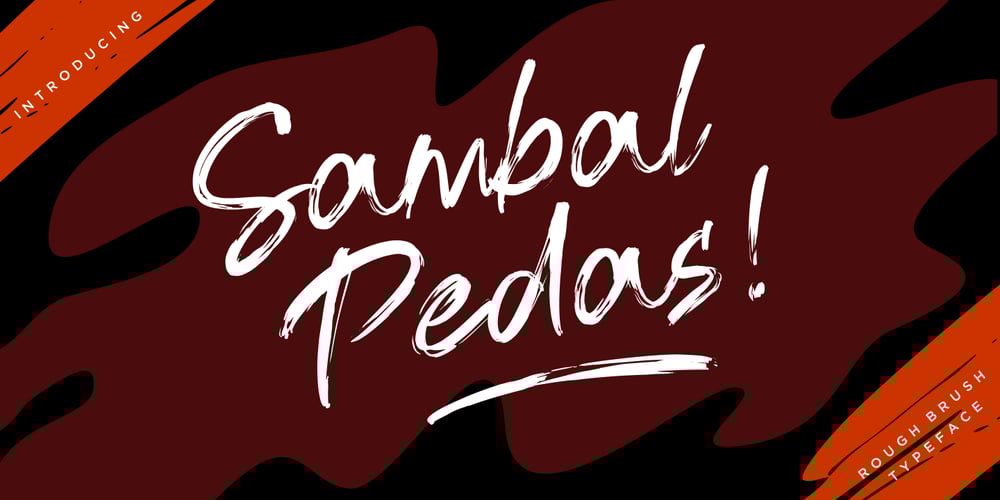
Sambal Pedas Font Family was designed by Burhan Afif and published by HansCo. Sambal Pedas contains 1 styles and family package options. Sambal Pedas is a handwritten font with a dry brush texture. This texture is very detailed. This font looks rough and will be great in any design. It is very recommended to use in crafts, posters, books, branding, quotes, print templates, packaging, invitations, music labels, product label, logo, shirt, magazine or anything else. This typeface comes in uppercase and lowercase, with punctuation, symbols, numerals, swashes and also has multilingual support. Swashes is alternate from numeral 0 – 9, You can access swashes from your OpenType panel in your design software. Enjoy !